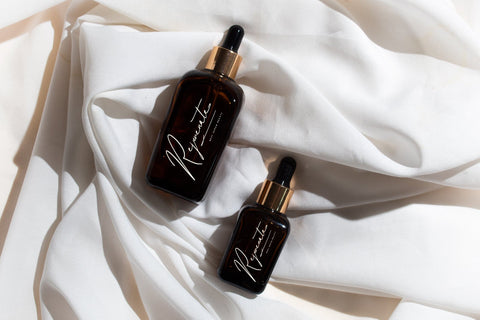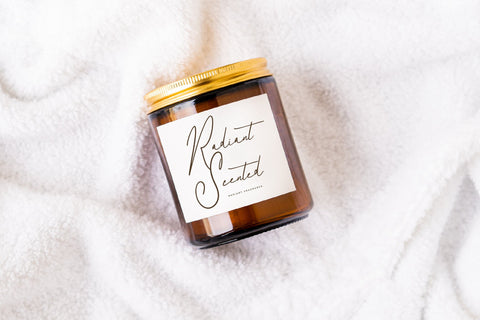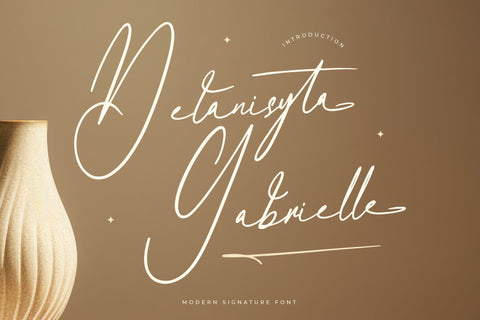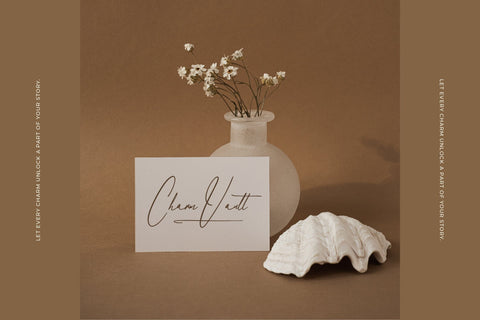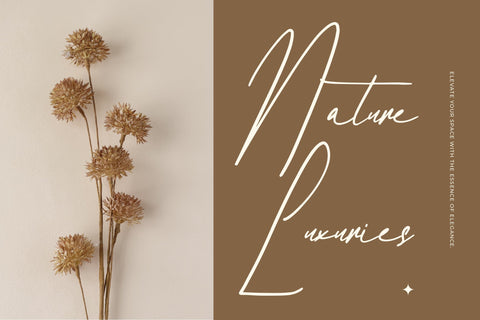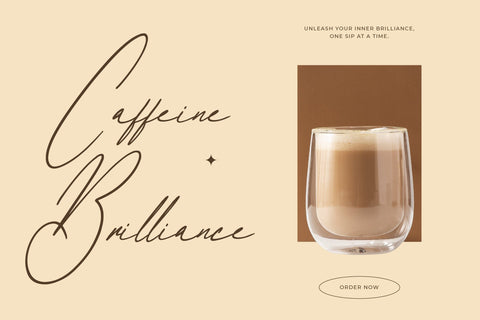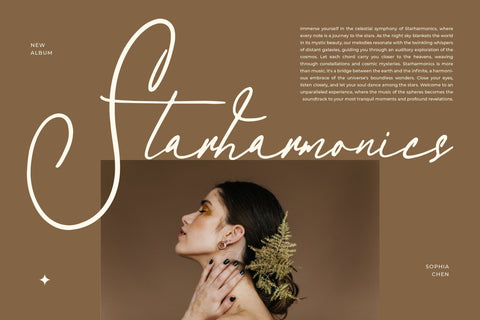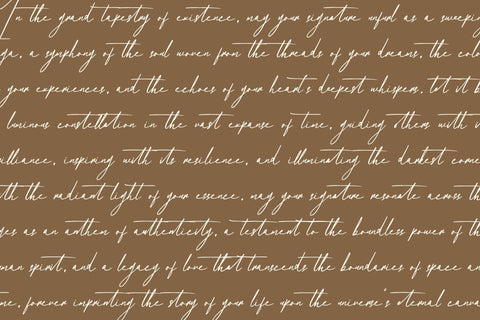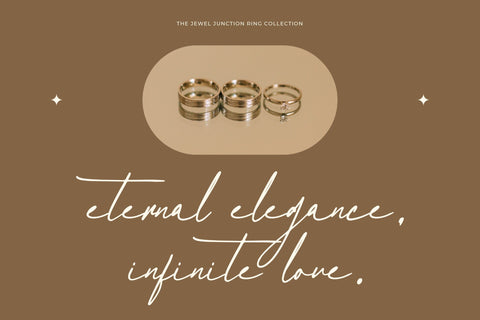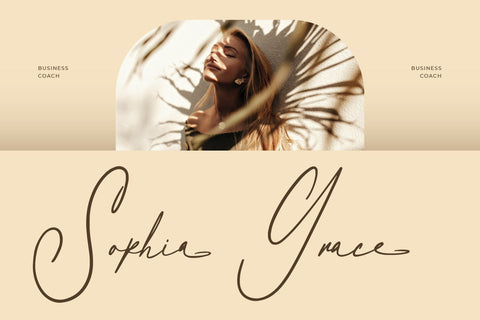
Delanisyta Gabrielle - Modern Signature Font
Delanisyta Gabrielle - Modern Signature Font , from Letterena, is a Luxury Script font, suitable for any projects such as: logos, branding projects, homeware designs, product packaging, mugs, quotes, posters, shopping bags, t-shirts, book covers, name card, invitation cards, greeting cards, label, photography, watermark, special events, and all your other luxury and beautiful projects that need a Luxury serif taste.